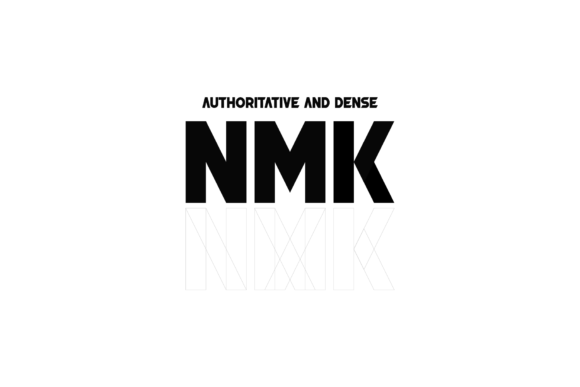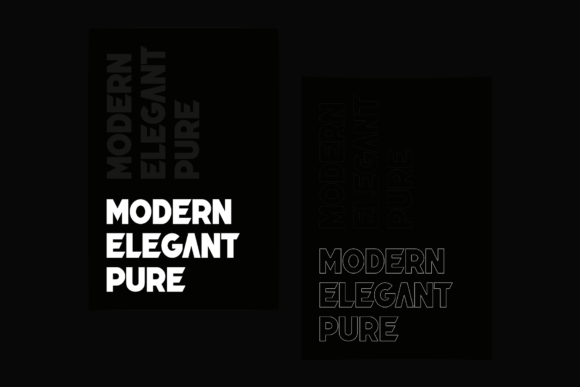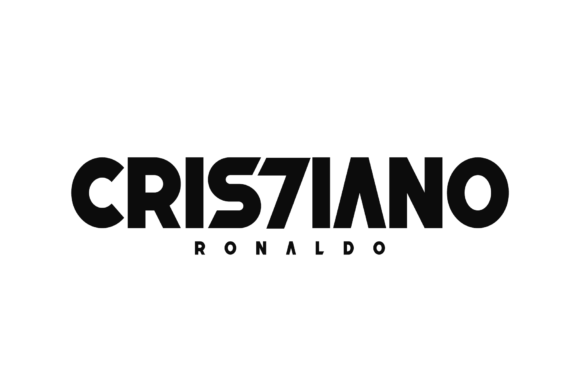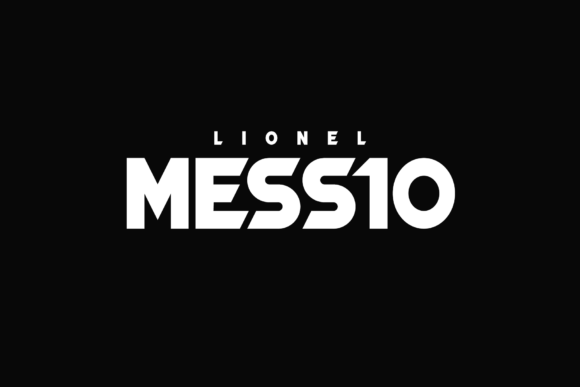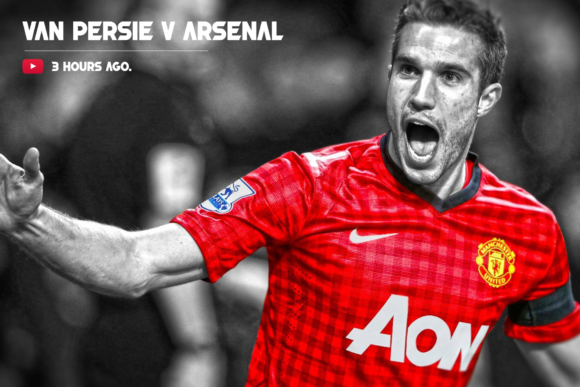
Find Your Perfect Match: Discover the Power of Arrakis Font
Remember that moment when you’re working on a project and everything just comes together – the colors, the textures, the typography? It’s a feeling like no other, and it’s exactly what designers strive for. But sometimes, it’s the smallest details that make all the difference. Enter the Arrakis Font, a bold and simple sans serif font that can elevate your creative ideas to the next level.
Designed to be versatile, the Arrakis Font is perfect for a wide range of projects, from sleek and modern websites to bold and eye-catching advertisements. Its clean lines and minimalist aesthetic make it an excellent choice for designers looking to add a touch of sophistication to their work. With the Arrakis Font, you can take your designs to new heights and make them truly stand out in a crowded marketplace.
Arrakis Font Key Features
- Font Family: Arrakis is a sans-serif font family designed by Type Together, available in multiple weights and styles.
- Unique Characteristics: Arrakis features a unique blend of modern and futuristic design elements, with a focus on legibility and readability, making it ideal for digital and print applications.
- Language Support: Arrakis supports a wide range of languages, including Latin, Cyrillic, Greek, and many others, making it a versatile font for global applications.
Arrakis Font Review
Initially, I was drawn to the Arrakis font due to its unique blend of classic and futuristic elements. ✨ The font’s clean lines and geometric shapes give it a sense of modernity, while its subtle nuances evoke a sense of nostalgia.
One of the standout features of Arrakis is its excellent legibility. ✨ It’s easy to read, even at small font sizes, making it a great choice for digital applications. Additionally, the font’s bold weight is particularly striking, making it perfect for headlines and titles.
While Arrakis is a solid font, it’s not without its limitations. ⚠️ One of the main drawbacks is its limited language support. It’s only available in a few languages, which may be a concern for designers working on global projects.
- ⚠️ Limited language support
- ⚠️ Not as extensive as other font families
Overall, I think Arrakis is a great addition to any designer’s toolkit. While it may have some limitations, its unique aesthetic and excellent legibility make it a worthwhile choice for many projects.
Arrakis Font is ideal for creating a futuristic or sci-fi themed design. Use it for:
- Book covers and titles
- Movie and TV show posters
- Video game branding and packaging
- Any design that requires a futuristic or otherworldly feel